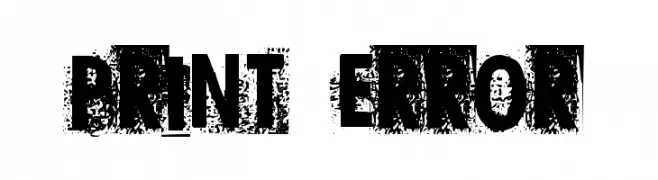
A decorative, edgy font with sharp, jagged edges and intricate detailing, perfect for bold, urban designs.
A bold, distressed stencil-style font with a rugged, industrial feel.
A bold, distressed font with a grungy, textured appearance.
A bold, distressed font with a grunge, print error effect.